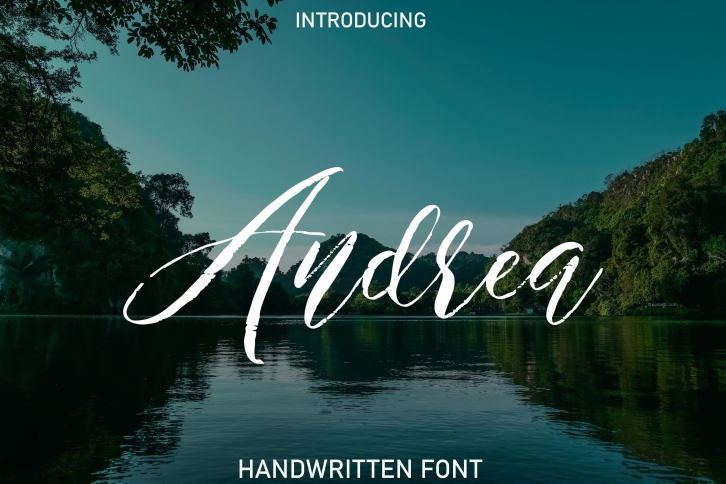
Andrea is a cursive and beautiful script font.
You can use it for various projects, such as blog posts, logos, branding, ads, invitations, greeting cards, planners, photo albums, decorations, and much more.